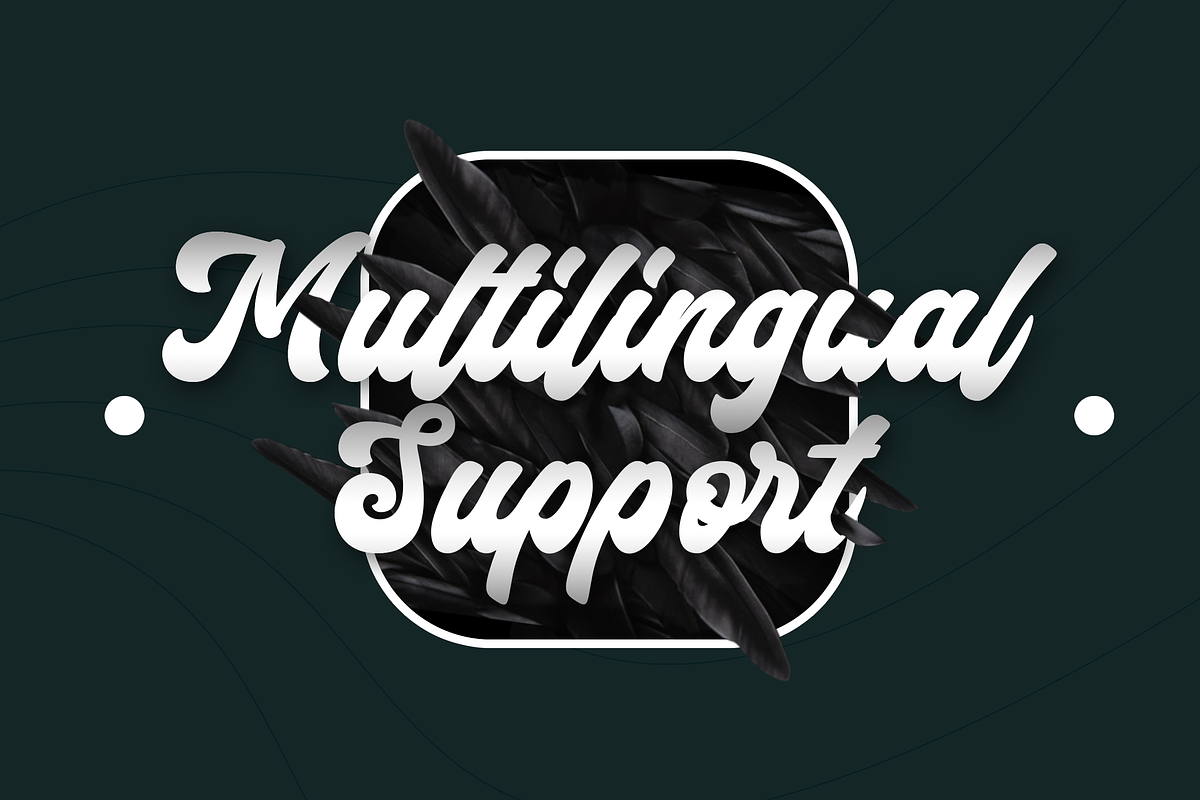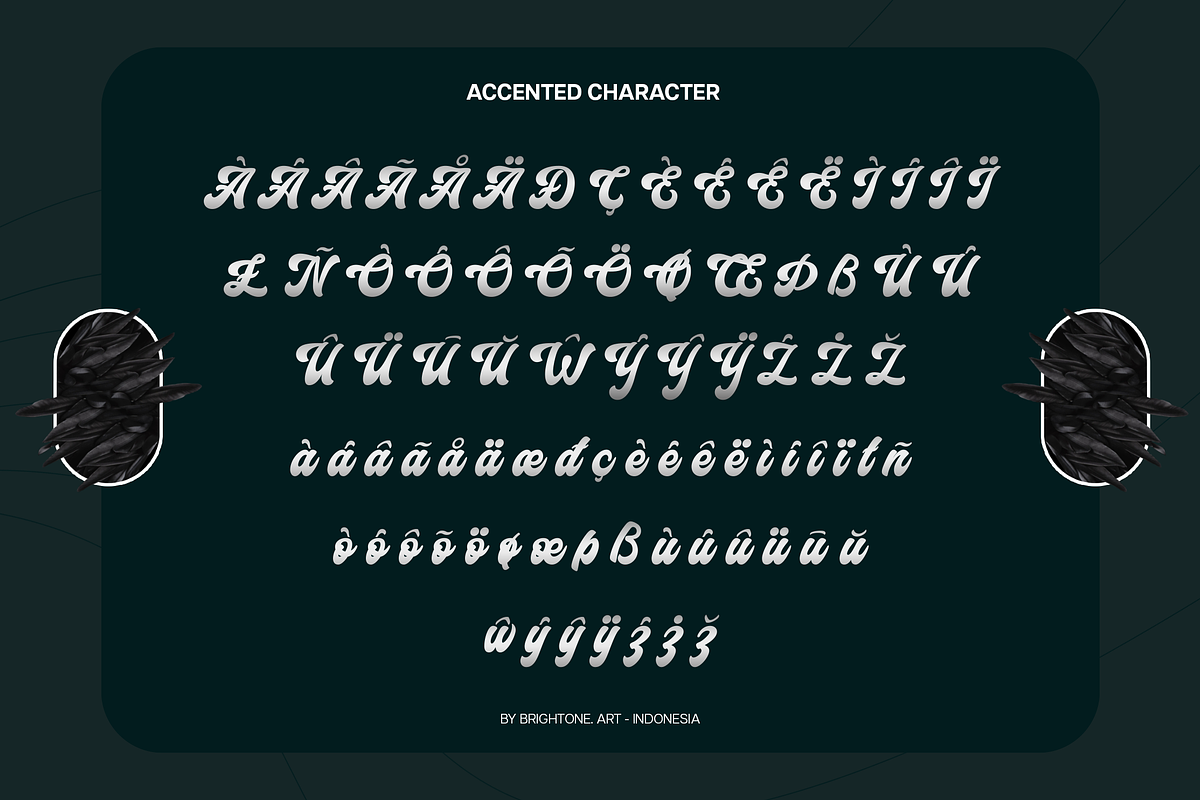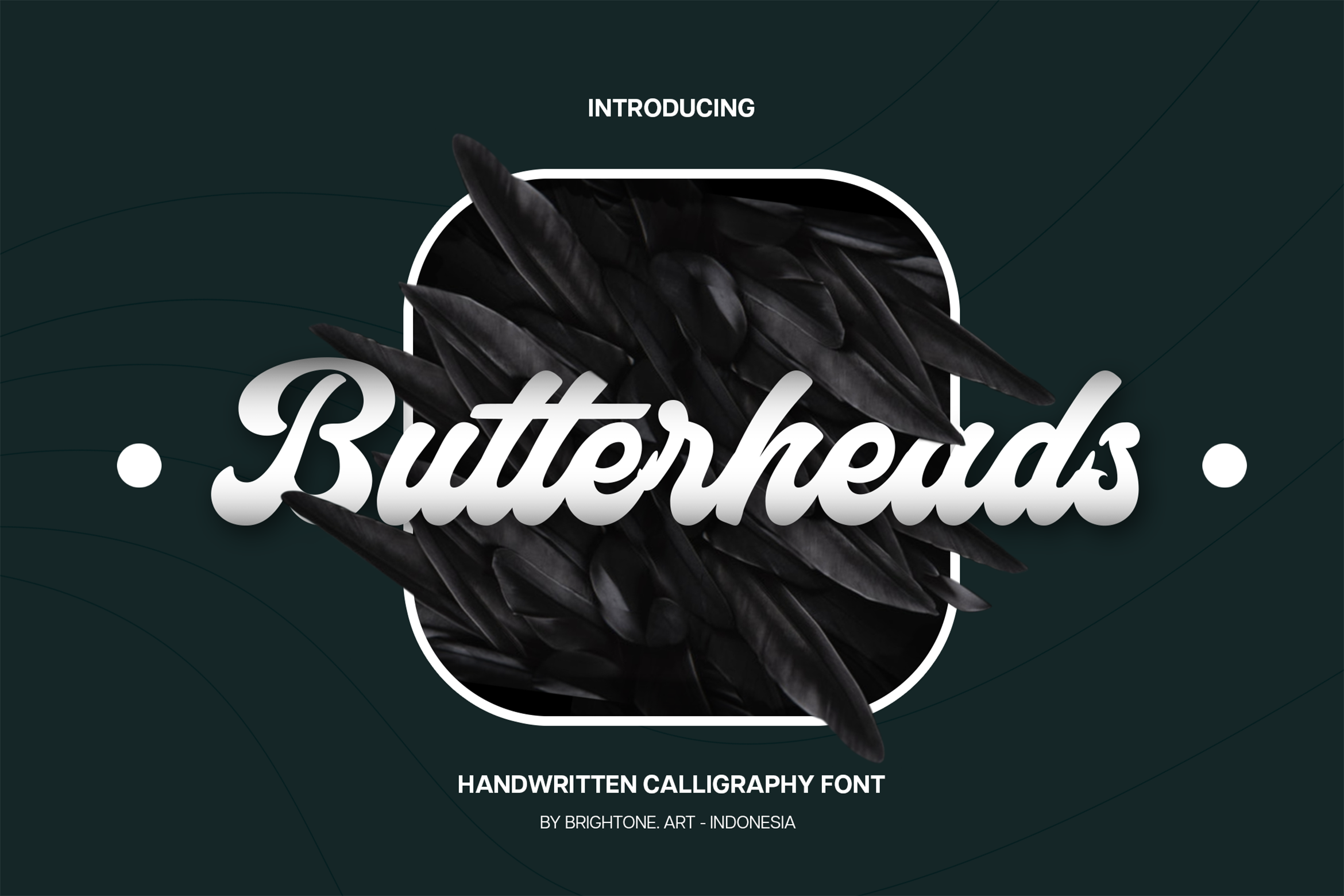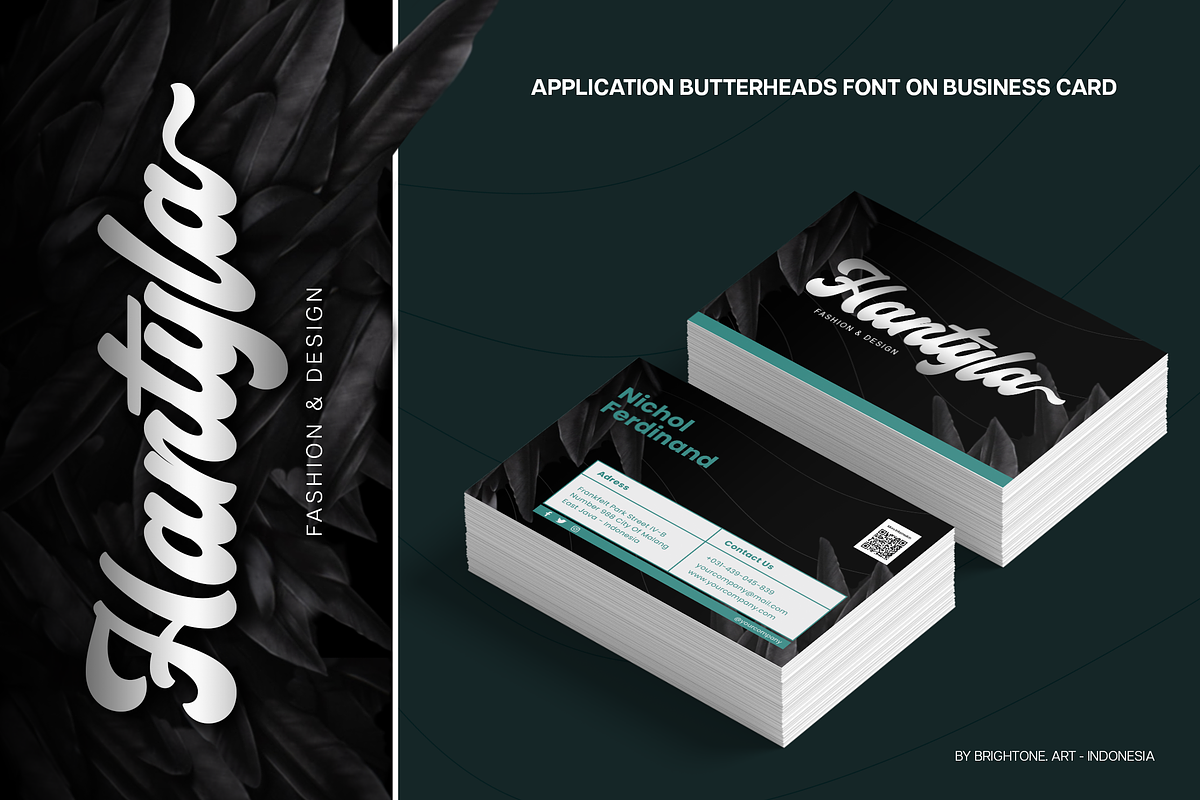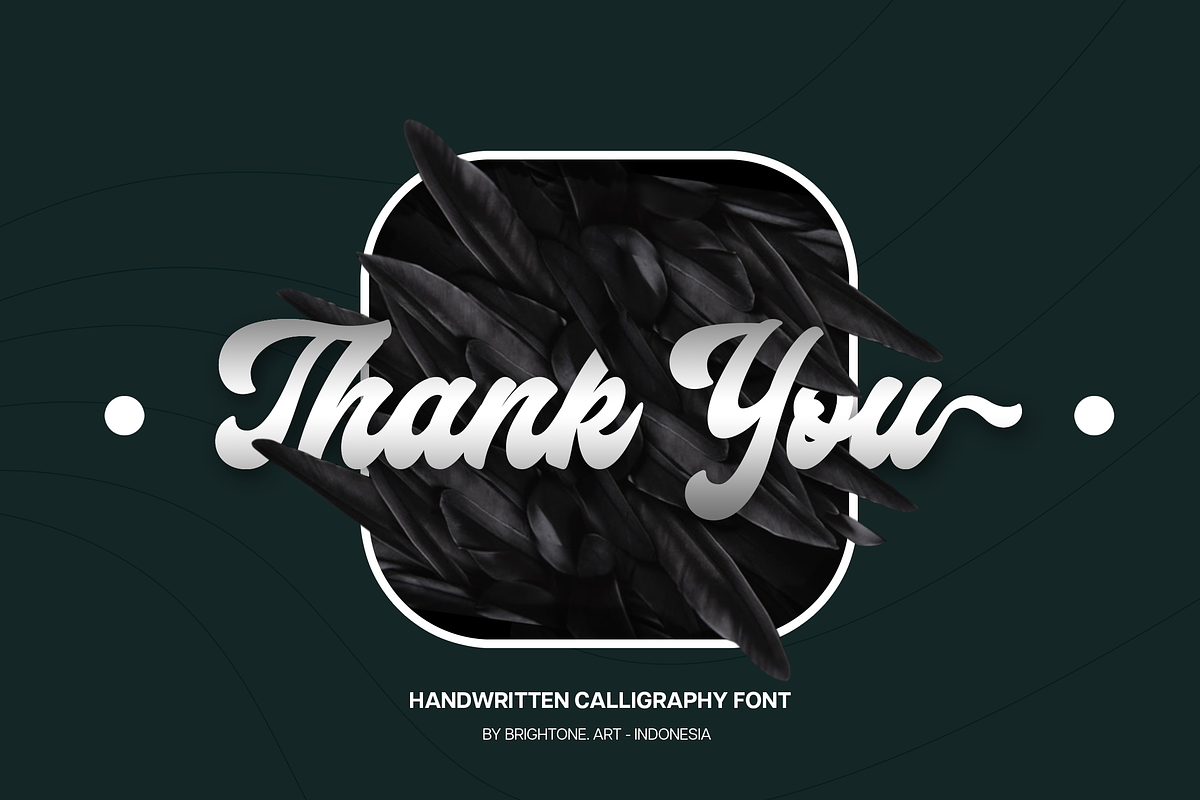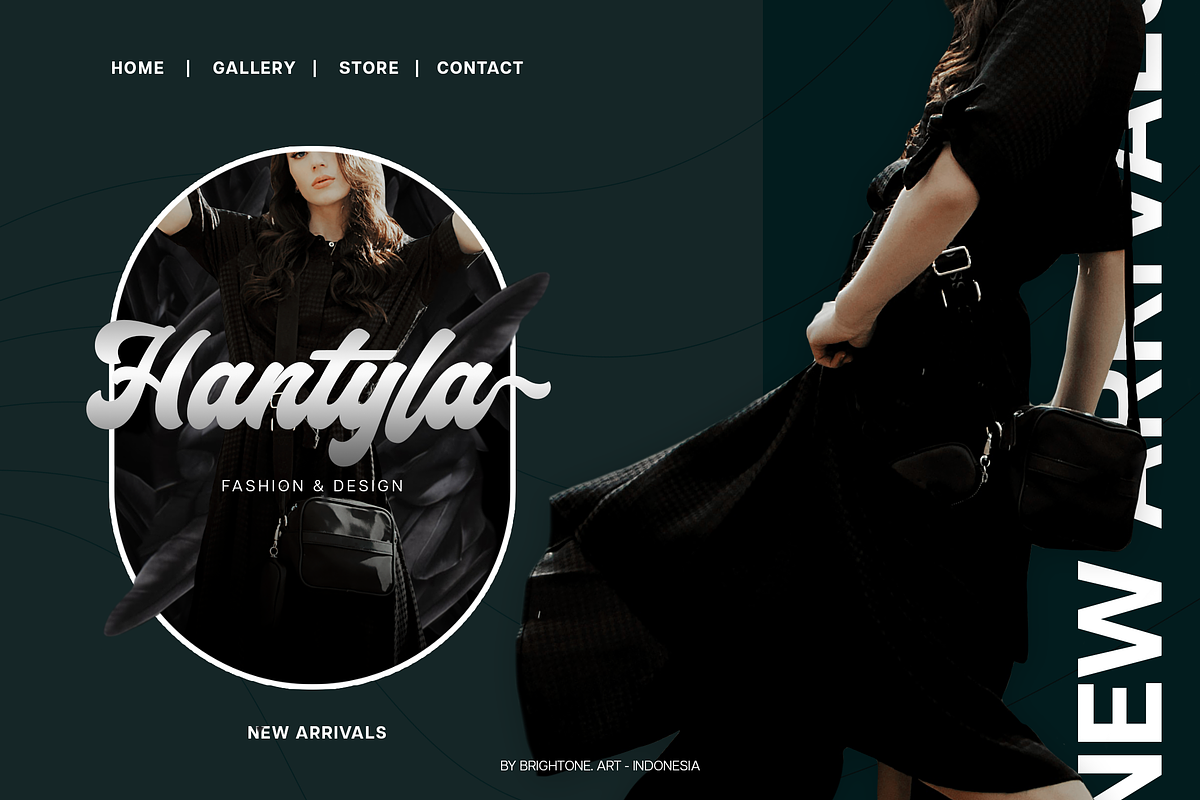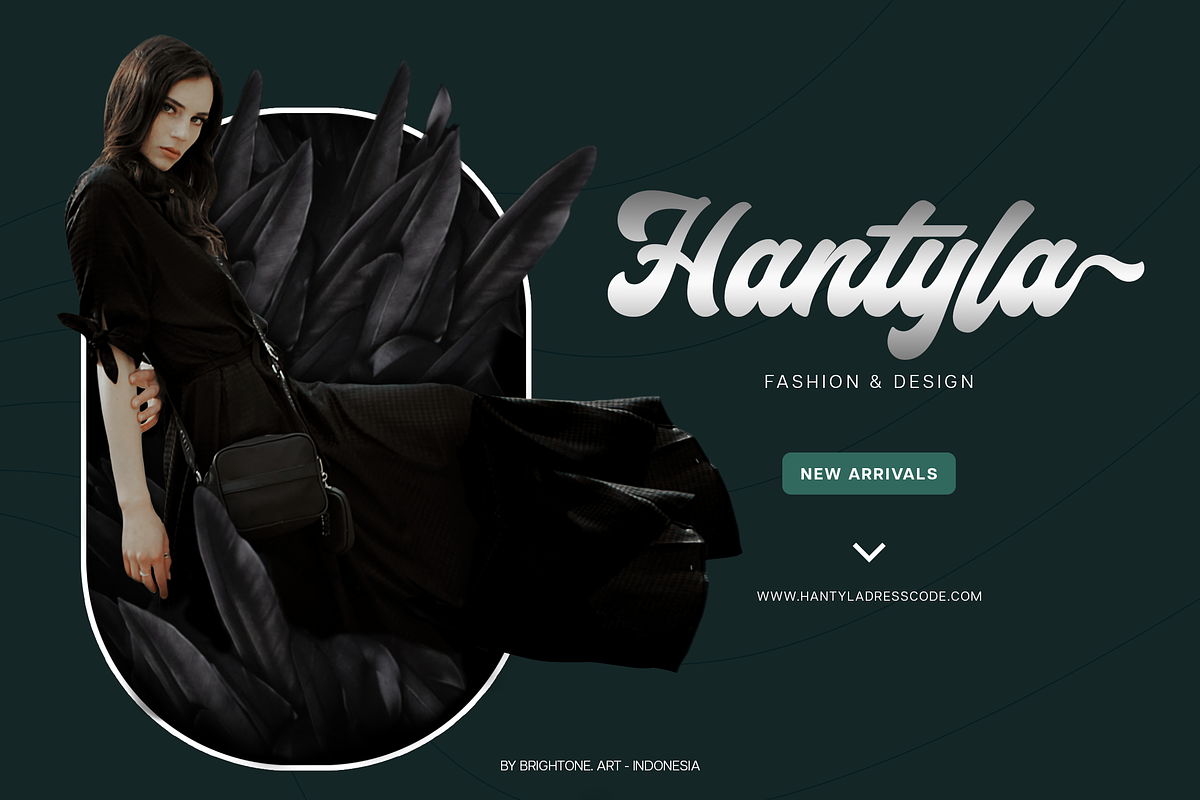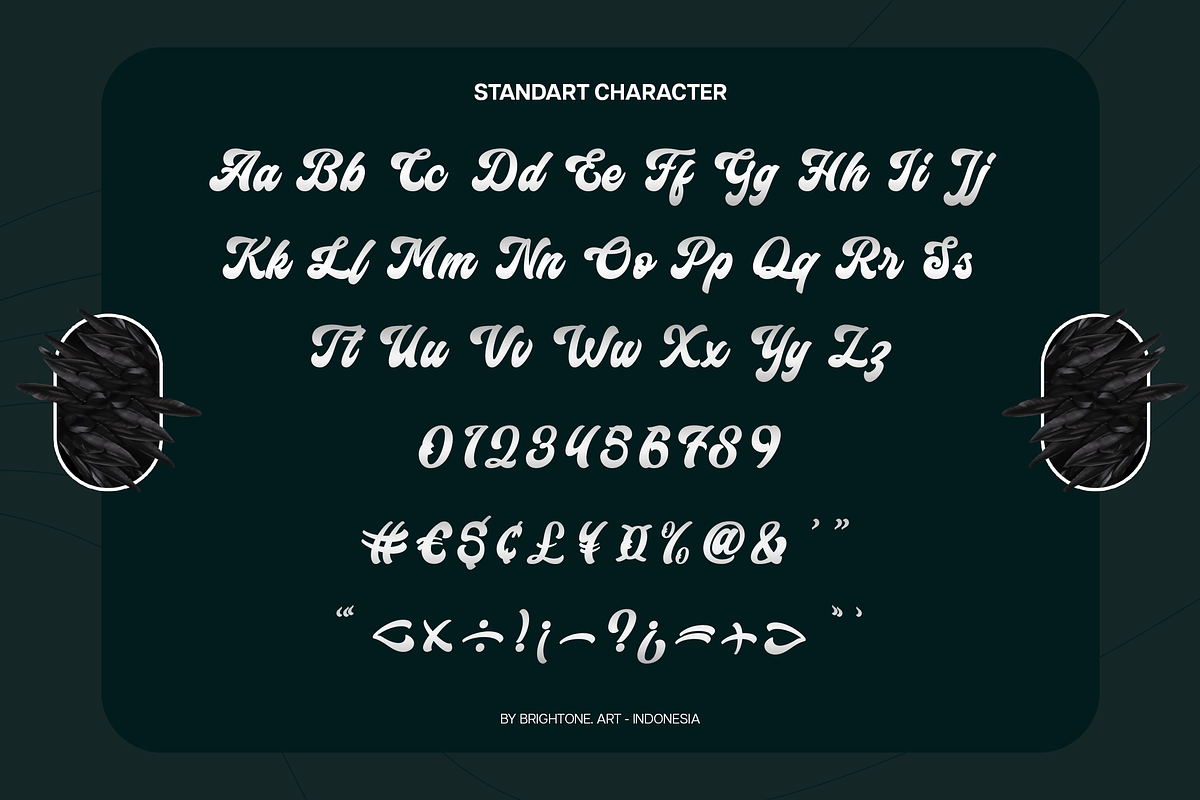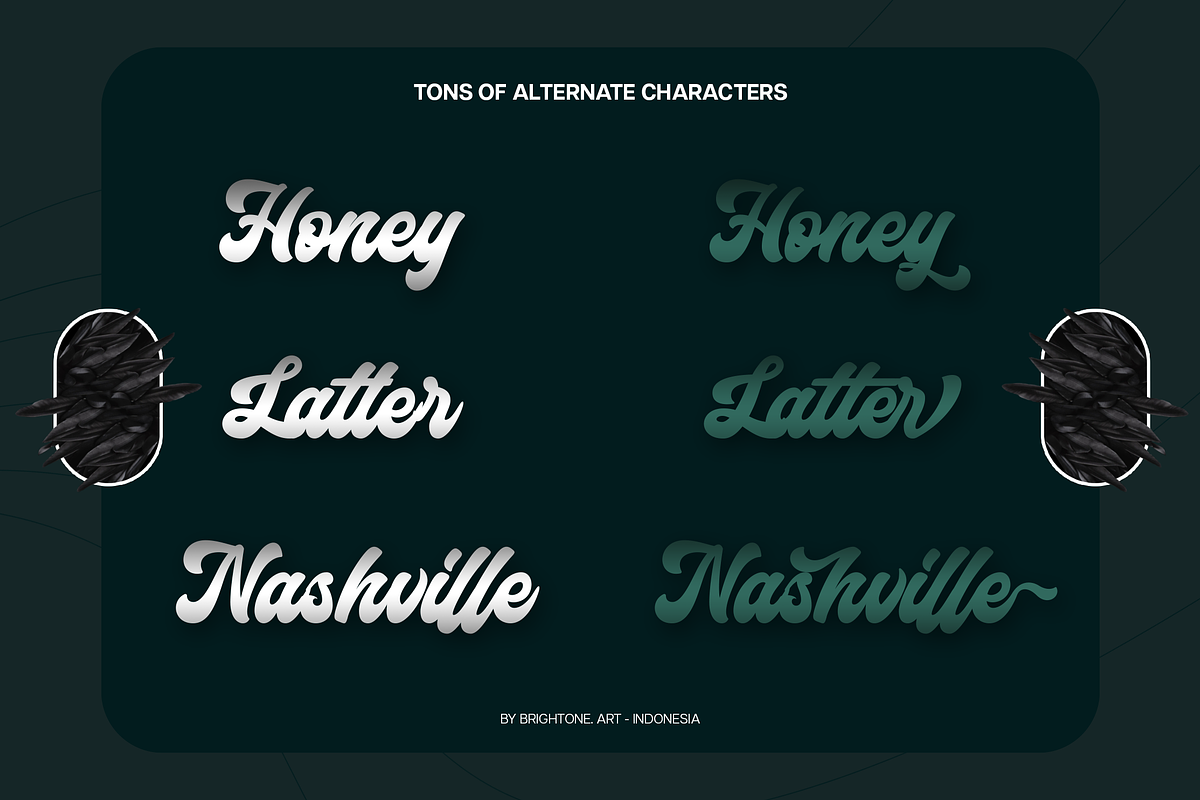
Butterheads - Handwritten Font
BUTTERHEADS is script font with good style and classy touch, these font includes:
- Uppercase and Lowercase Characters, Numbers and Punctuation.
- Alternates.
- Multilingual Support (Eastern, Central and Western European countries).
BUTTERHEADS font is suitable to use for all purpose for your logo lettering, logo, label, packaging, sticker, branding and many more.